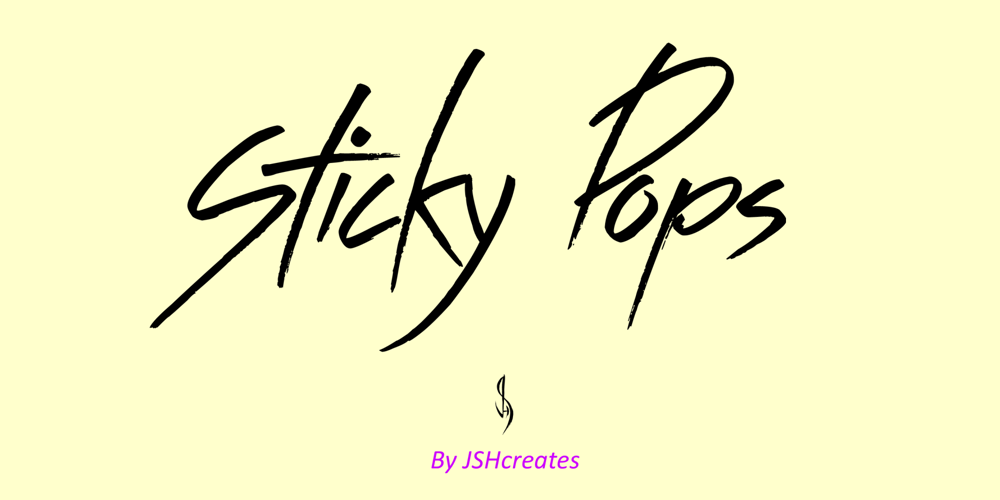
Sticky Pops
Sticky Pops font
Sticky Pops Font Family was designed by Jonathan Harris and published by JSH creates. Sticky Pops contains 1 styles and family package options. Sticky Pops is a fun handwritten script font, created by Jonathan S Harris in 2020. This style of lettering looks awesome on clothing, posters, signage/display signs, and just about anything to do with media.